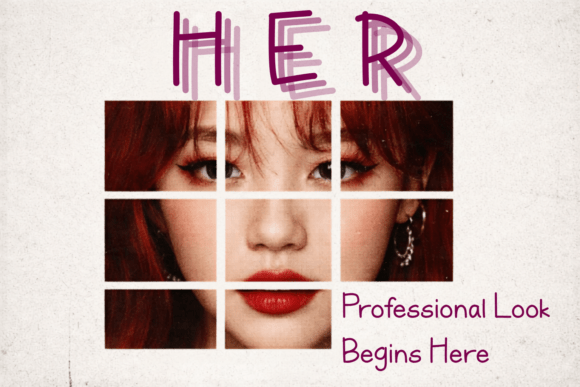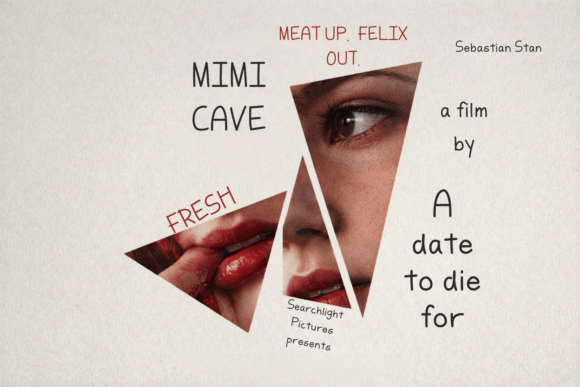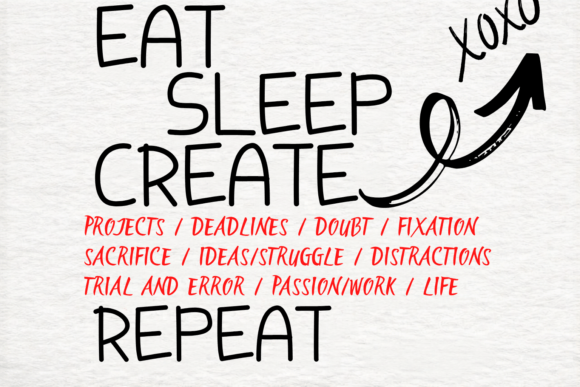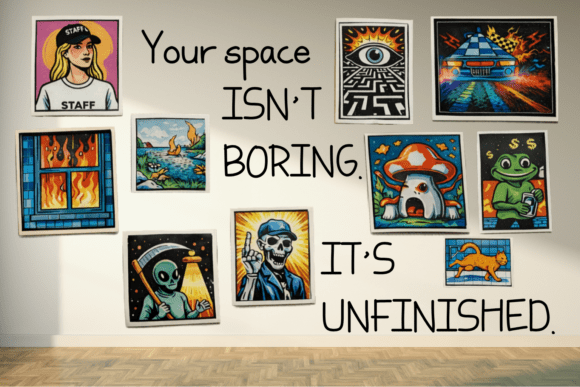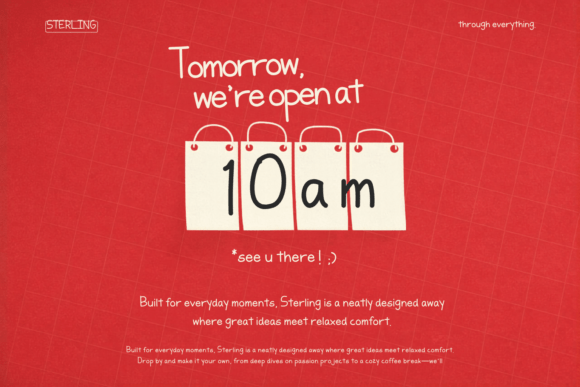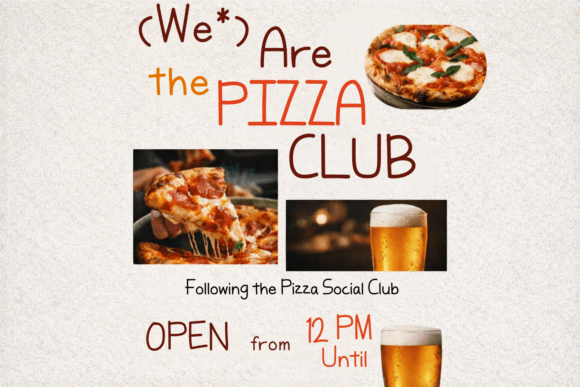
Introduction to Pulparo Font
Have you ever been in the midst of a creative project, staring at a blank canvas, and struggling to find the perfect font to bring your vision to life? You know, that elusive combination of personality, clarity, and versatility that makes your design truly stand out? Well, say hello to the Pulparo Font, a game-changing typeface that’s about to become your new design BFF.
With its clean structure, smooth performance, and approachable look, the Pulparo Font is a must-have design resource for any creative project. Whether you’re a seasoned pro or just starting out, this high-quality font is easy to use and works beautifully across both digital and print media. Plus, with a transparent background, you can easily pair it with other fonts to create a unique visual identity that’s all your own.
Key Features of Pulparo Font
- Pulparo Font is a premium design resource that can elevate any creative project, from branding and marketing materials to digital art and graphic design.
- Its distinctive style and high-quality design make it a valuable addition to any design library, perfect for designers seeking a unique and eye-catching font.
Honest Review: Pulparo Font
I recently had the chance to try out the Pulparo Font for my creative project, and I must say it’s a unique and high-quality design resource. One of the things that works well is its bold and quirky style, which adds a fun touch to any design. ✨ The font also comes with a transparent background, making it easy to use on various backgrounds.
Here are some key features that I found useful:
- Unique and bold design
- High-quality graphics
Overall, I’m impressed with the Pulparo Font, and I think it’s a great addition to any designer’s toolkit. With its unique style and high-quality graphics, it’s definitely worth checking out. Just be aware of the limitations, and you’ll be good to go!
Pulparo Font
Tips for Getting the Most Out of Pulparo Font
To get the most out of the Pulparo Font, be sure to:
- Use it on a transparent background for a clean and modern look.
- Experiment with different font sizes and styles to add visual interest.
- Combine the Pulparo Font with other design elements, such as images and shapes, to create a unique and eye-catching design.
The Pulparo Font is perfect for a variety of creative projects, including:
- Poster design